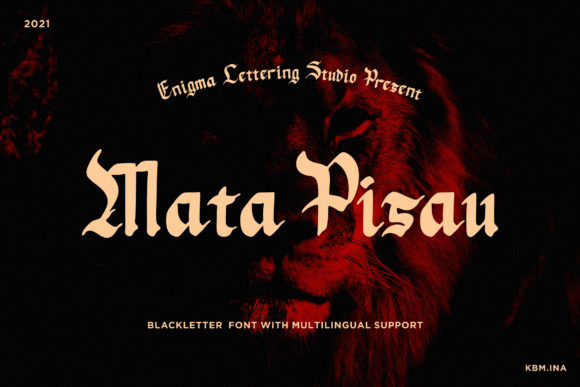
Step into the world of Mata Pisau, a font that exudes boldness and intrigue, a font that will leave an indelible mark on your creative endeavors. This blackletter font, crafted with meticulous precision, is an artistic marvel that combines the allure of the past with the vibrancy of the present, making it the perfect companion for your next project.
Unleash your creativity with Mata Pisau, a font that embodies the spirit of individuality. Its intricate details and assertive presence will add a touch of mystery and sophistication to your designs. Whether you're a seasoned designer or just starting your artistic journey, this font will elevate your creations to new heights.
With Mata Pisau at your fingertips, you'll find endless possibilities. From eye-catching logos that demand attention to captivating social media posts that leave a lasting impression, this font will amplify your message and make your words resonate with your audience. Its versatility knows no bounds, extending from stunning invitations and certificates to mesmerizing posters and flyers.
But Mata Pisau is more than just a beautiful font. It's an extension of your creative vision, a tool that empowers you to express yourself authentically and connect with your audience on a deeper level. Let the bold strokes of Mata Pisau tell your story, convey your emotions, and capture the essence of your brand.
So, if you're seeking a font that transcends the ordinary and ignites your imagination, look no further. Mata Pisau awaits you, ready to transform your creations into works of art. Embrace its power and watch your designs flourish.